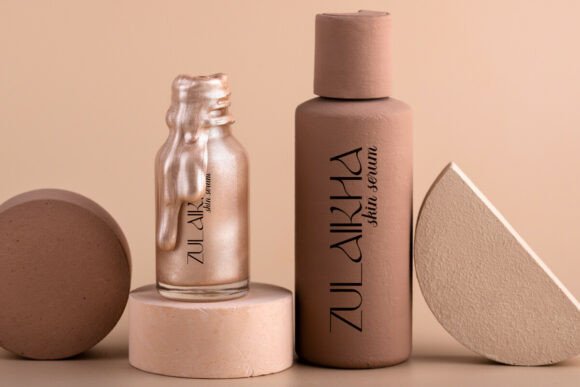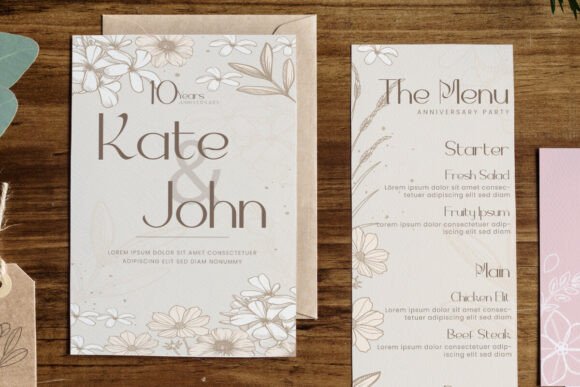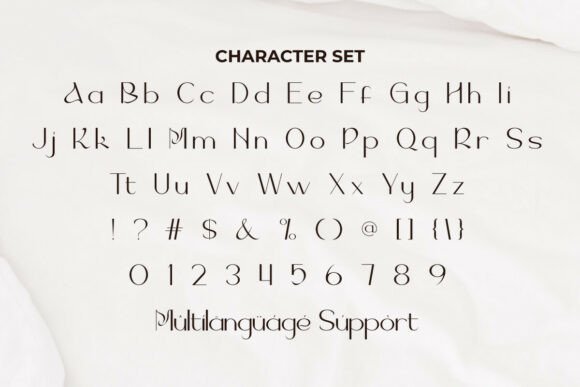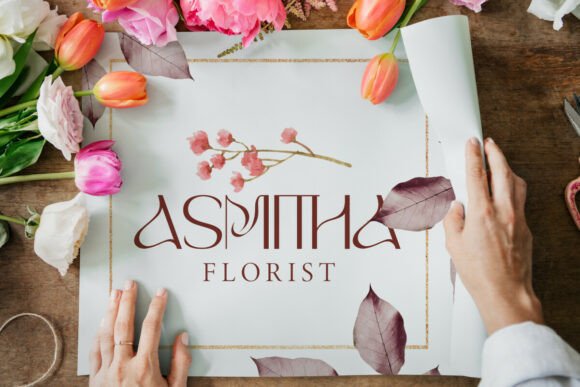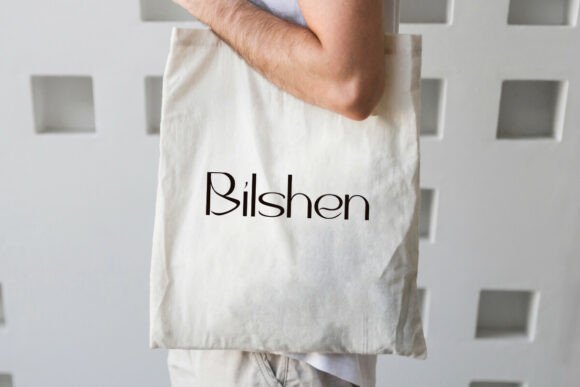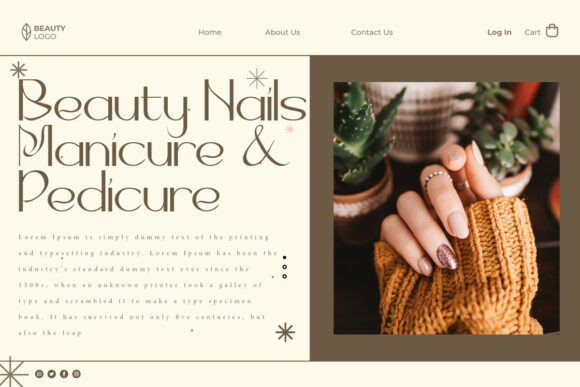
Bilshen Font – Elevate Your Designs with Elegance and Sophistication
In the world of typography, a font can make or break a design. It’s the foundation upon which the entire visual aesthetic is built. For designers and crafters looking to add a touch of elegance and sophistication to their work, the Bilshen Font is an excellent choice. This creative display typeface seamlessly blends sleek structure with beautifully crafted exotic curves, resulting in a refined and distinct personality that’s sure to make an impact.
What is Bilshen Font?
Bilshen Font is a carefully crafted display typeface designed to elevate your visuals with a unique and artistic flair. Its sleek structure and exotic curves come together to create a font that’s both elegant and sophisticated. Whether you’re working on high-end design applications such as billboards, brand logos, blogs, brochures, flyers, product packaging, wedding invitations, greeting cards, quotes, websites, or more, Bilshen Font is the perfect choice.
Key Features of Bilshen Font
So, what sets Bilshen Font apart from other typefaces? Here are some of its key features:
- Elegant and Sophisticated: Bilshen Font radiates elegance and sophistication, making it perfect for high-end design applications.
- Creative Display Typeface: With its unique blend of sleek structure and exotic curves, Bilshen Font is sure to make an impact.
- Versatile: Bilshen Font is suitable for a wide range of design applications, from billboards and brand logos to wedding invitations and greeting cards.
Why Choose Bilshen Font?
With so many fonts available, why choose Bilshen Font? Here are just a few reasons why designers and crafters love this elegant display typeface:
- Instant Impact: Bilshen Font is designed to make an impact, adding a touch of elegance and sophistication to your designs.
- High-Quality Design: Bilshen Font is a high-quality typeface that’s perfect for professional design applications.
- Unique and Artistic: Bilshen Font has a unique and artistic flair that’s sure to set your designs apart from the rest.
How to Use Bilshen Font
Using Bilshen Font is easy. Here are just a few tips to get you started:
- Pair it with Other Fonts: Bilshen Font pairs well with other fonts, making it easy to create visually appealing combinations.
- Experiment with Different Sizes: Bilshen Font looks great in a variety of sizes, from large display fonts to smaller body text.
In conclusion, Bilshen Font is an elegant display typeface that’s perfect for designers and crafters looking to add a touch of sophistication and elegance to their work. With its unique blend of sleek structure and exotic curves, Bilshen Font is sure to make an impact. Its PUA encoding makes it easy to customize and adapt to your design needs, and its versatility makes it suitable for a wide range of design applications. Whether you’re working on a high-end design project or just looking for a font that will elevate your visuals, Bilshen Font is an excellent choice.